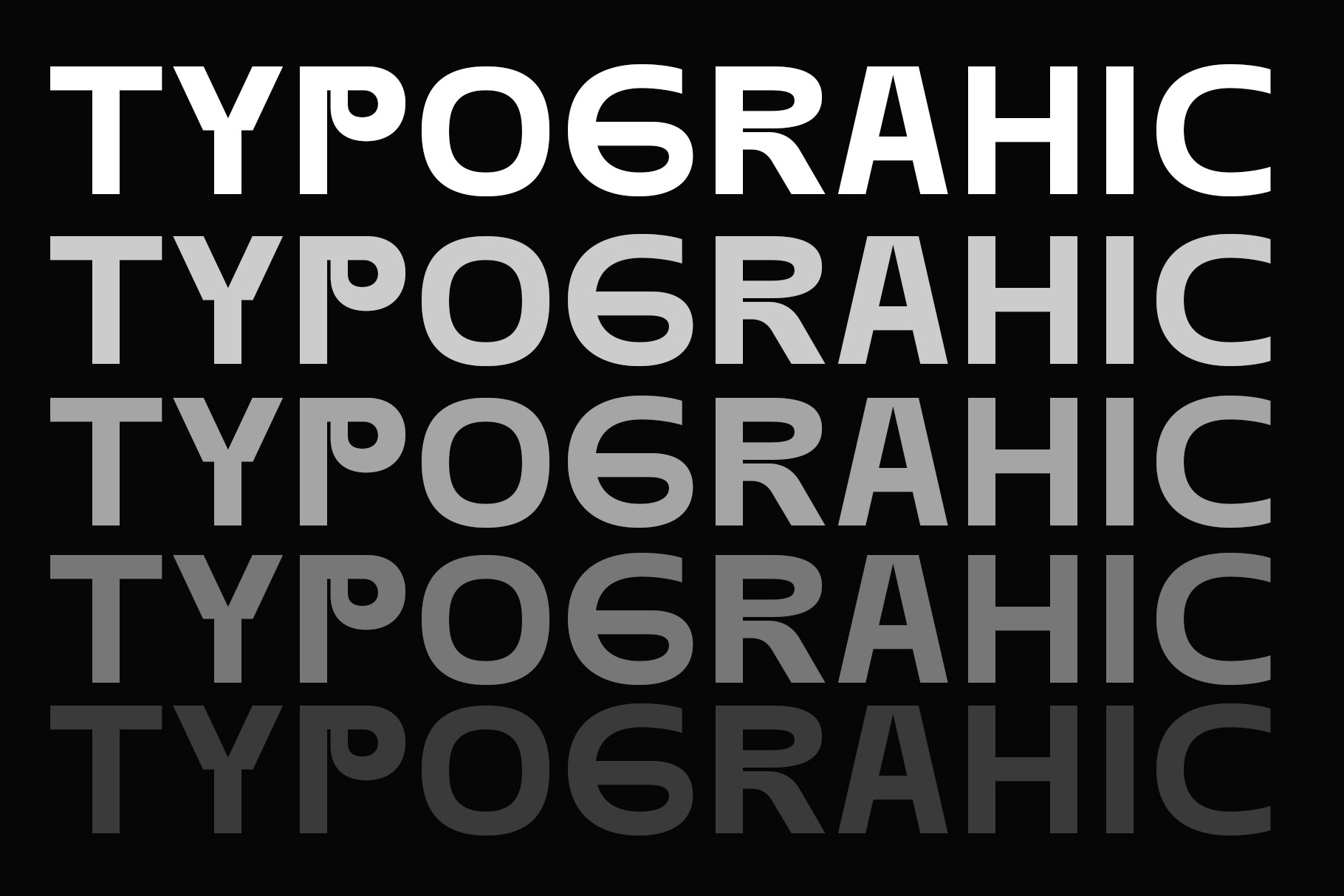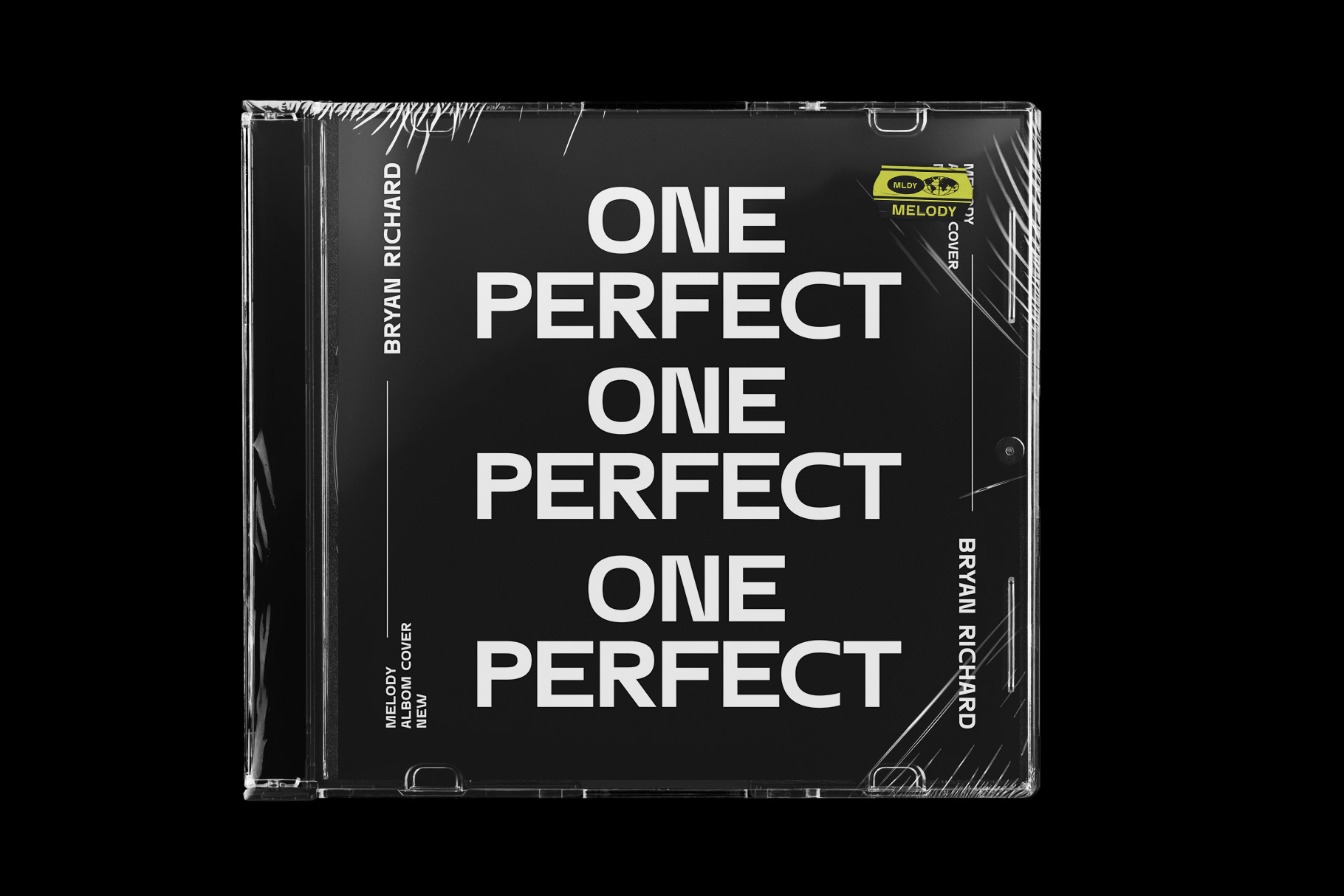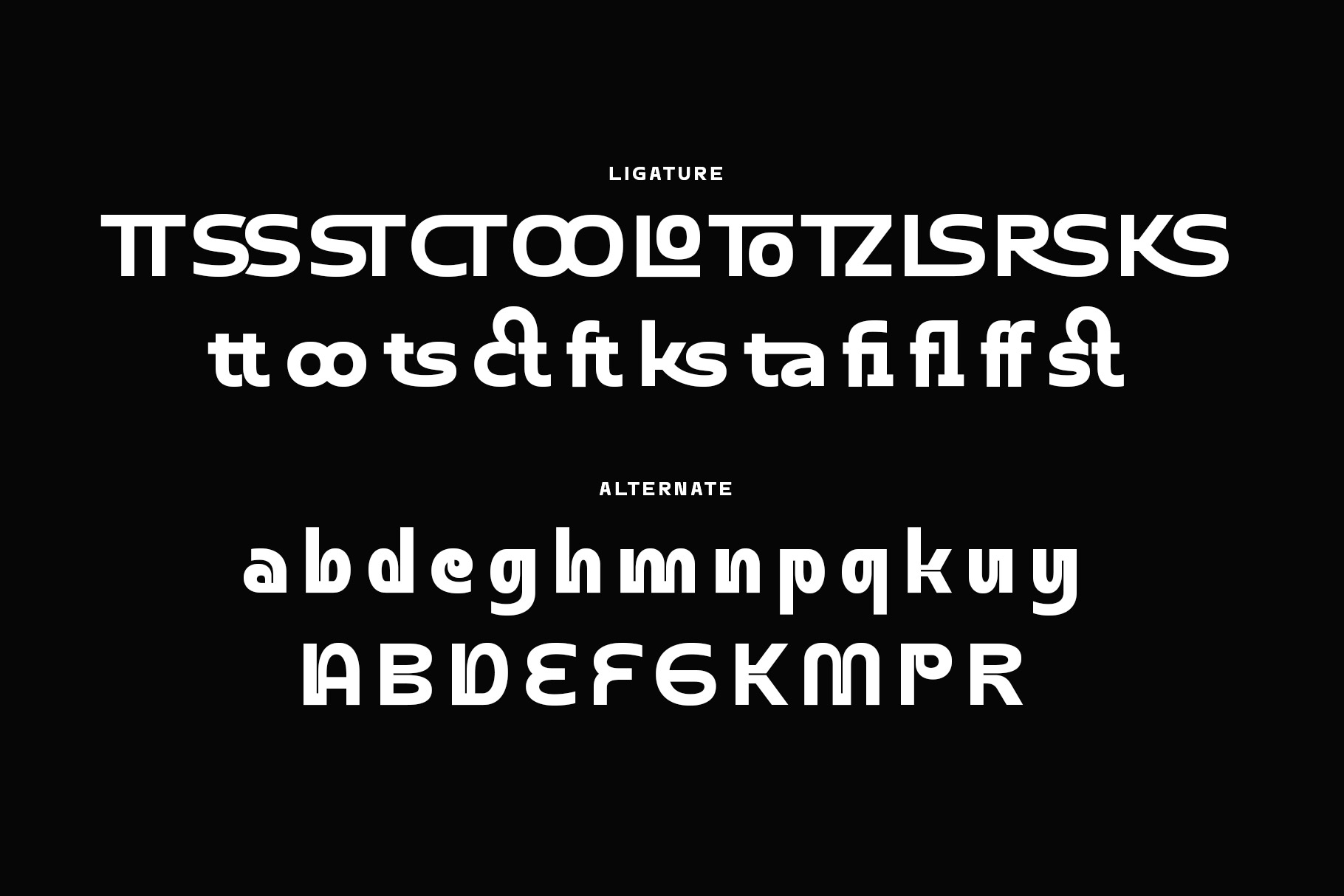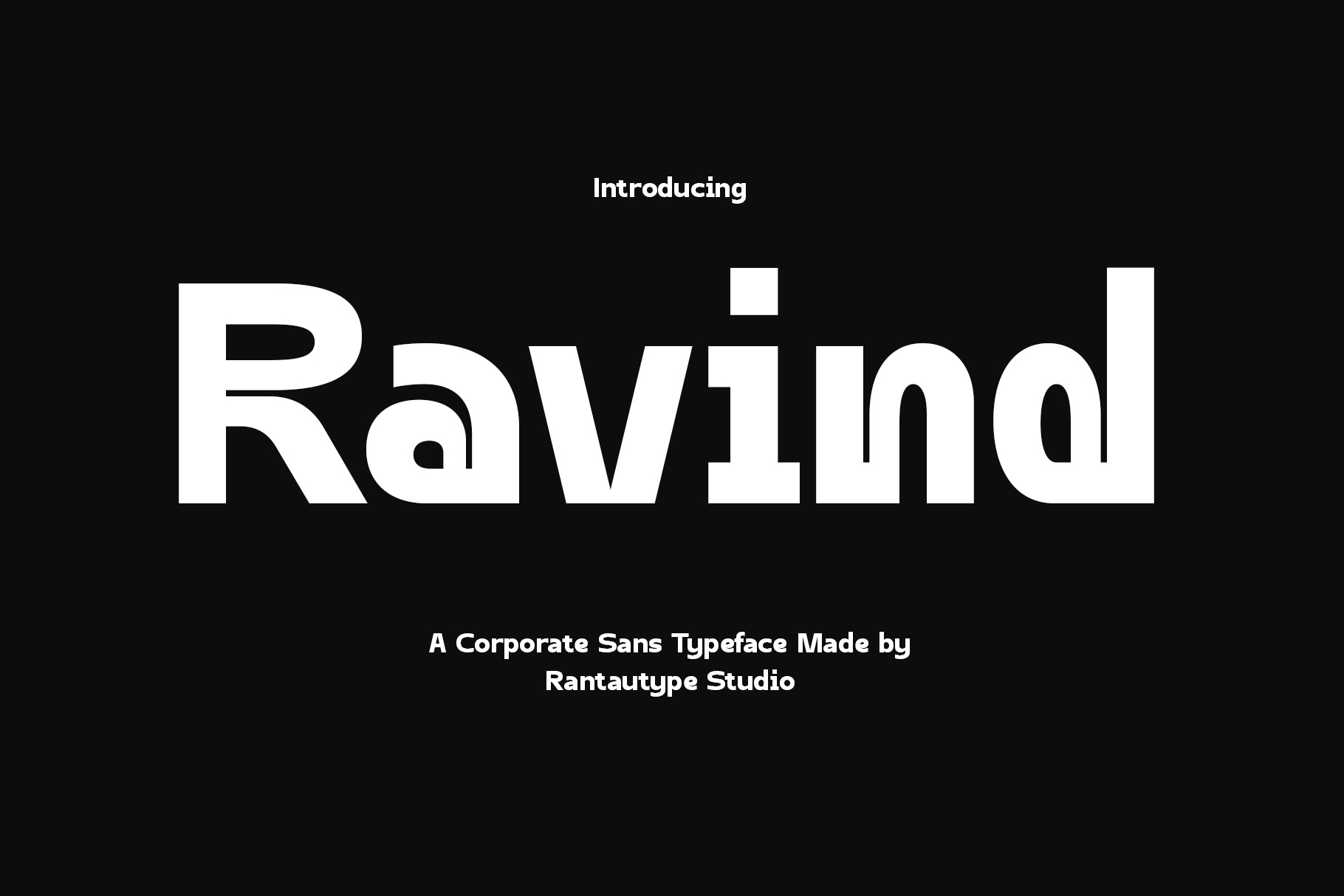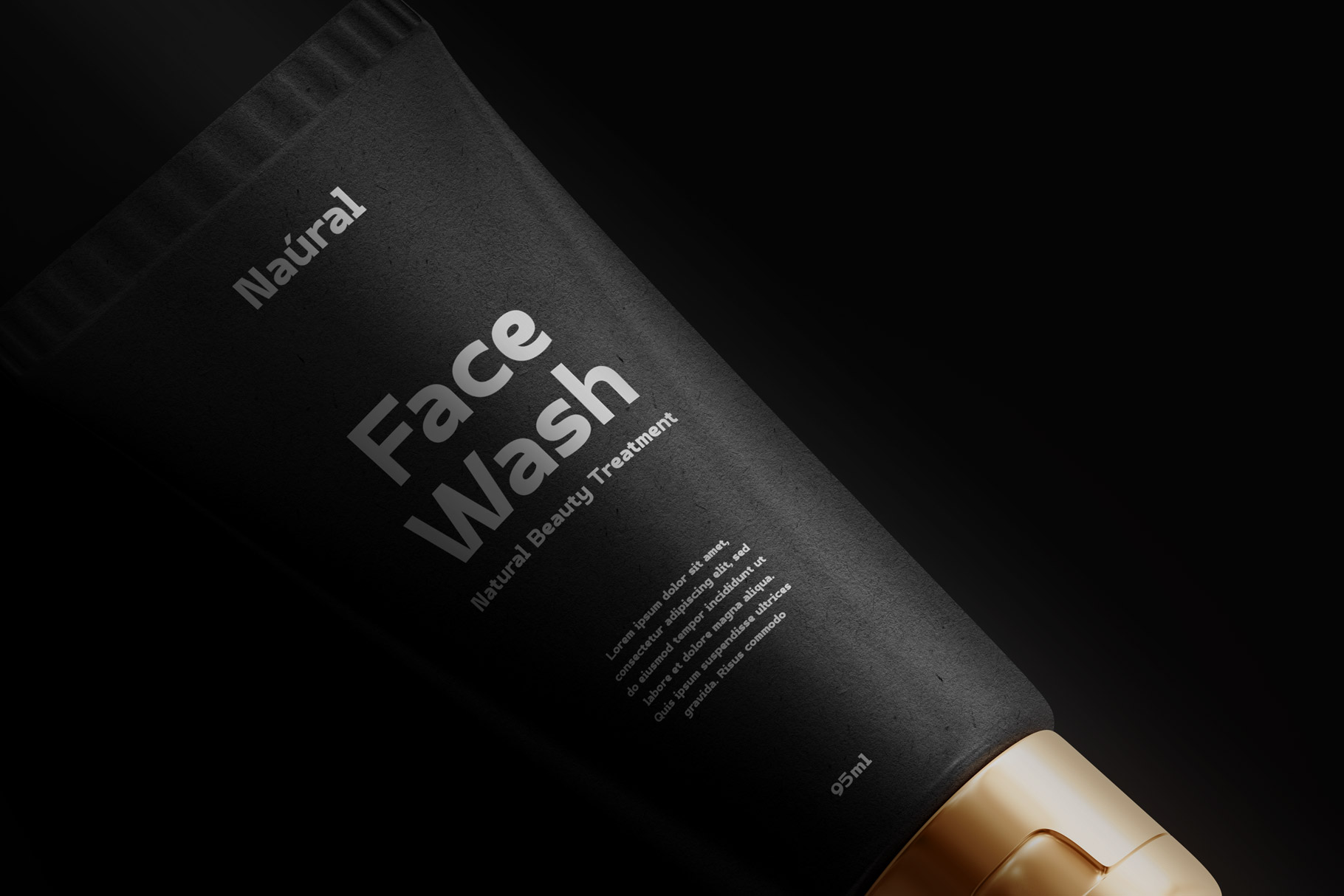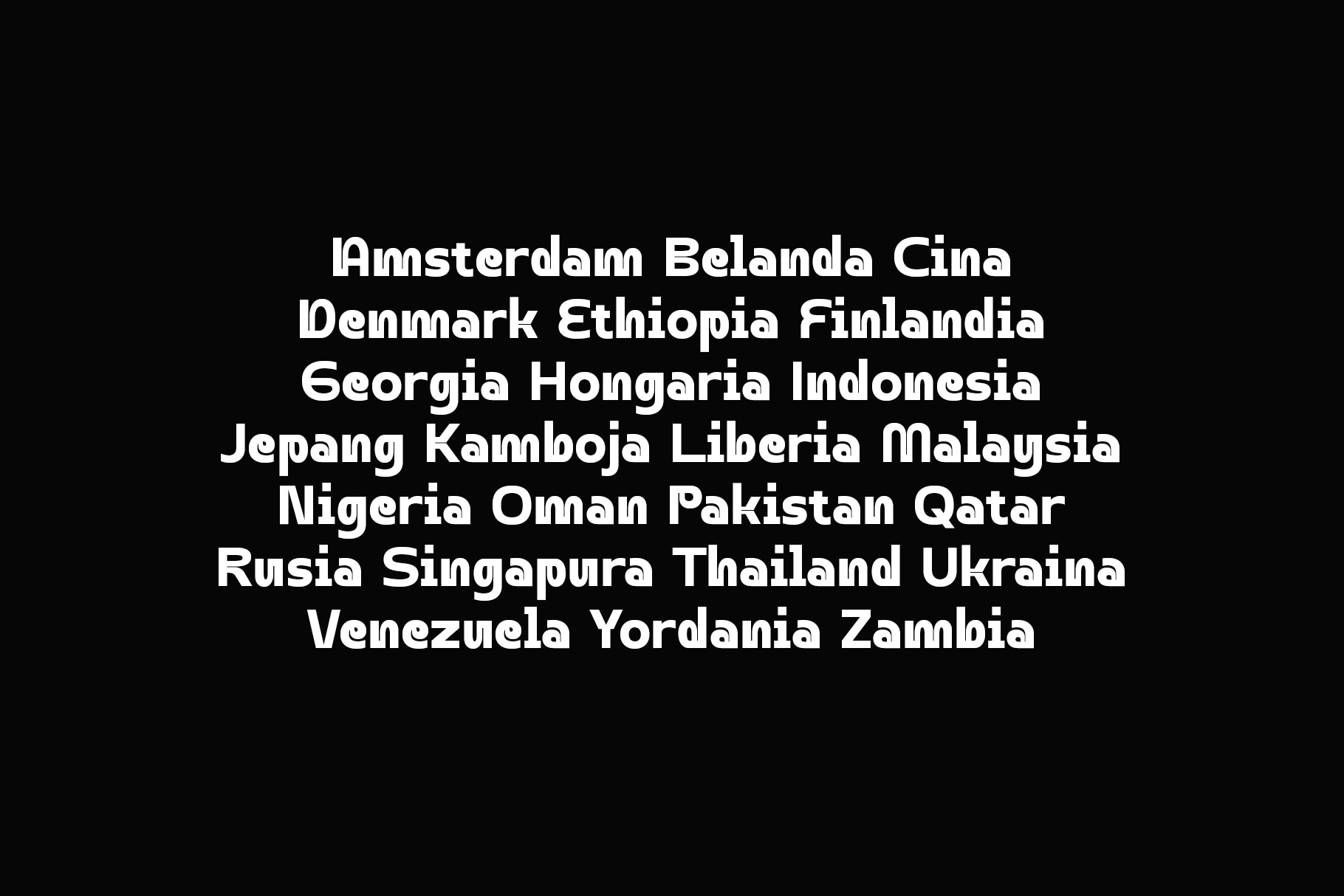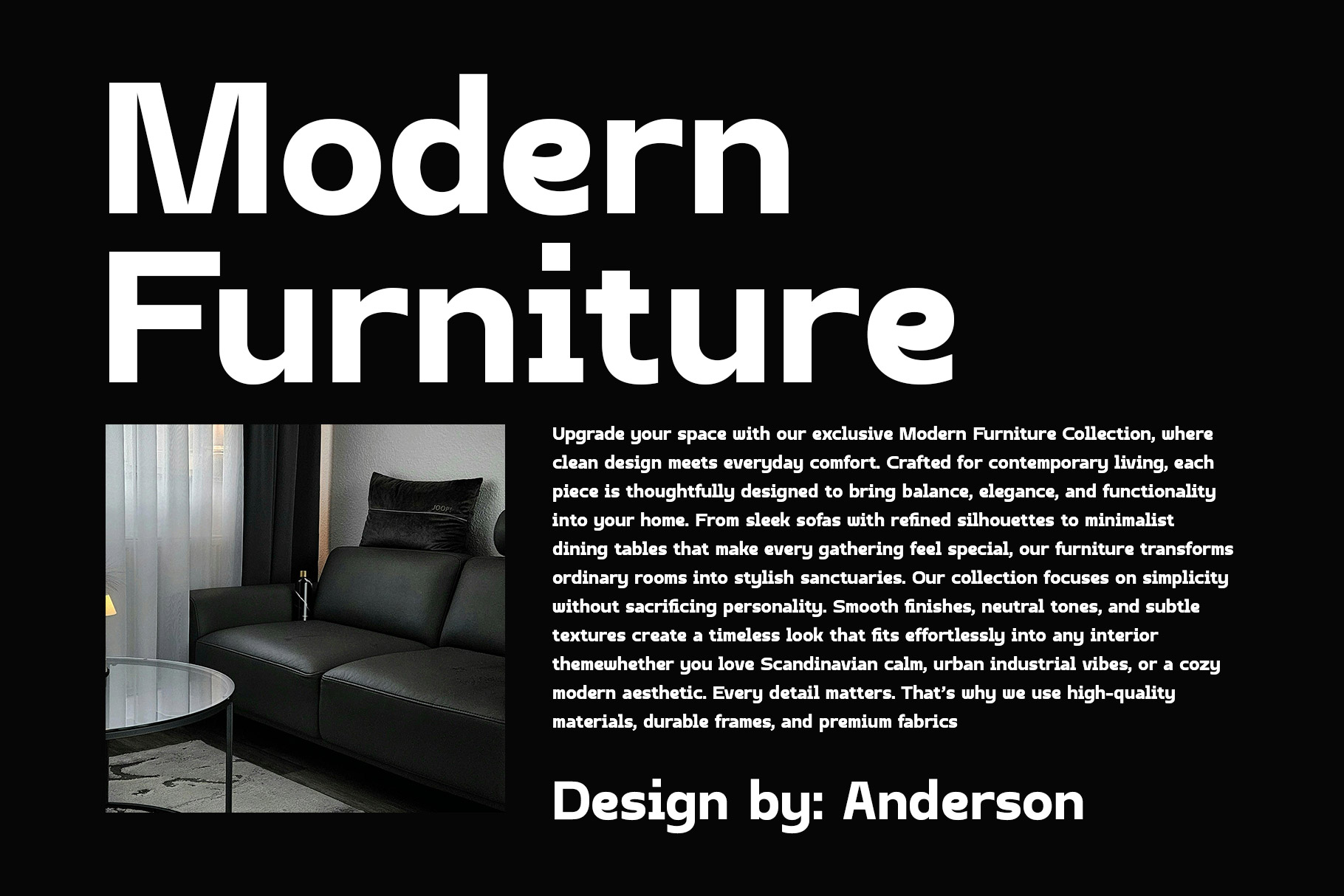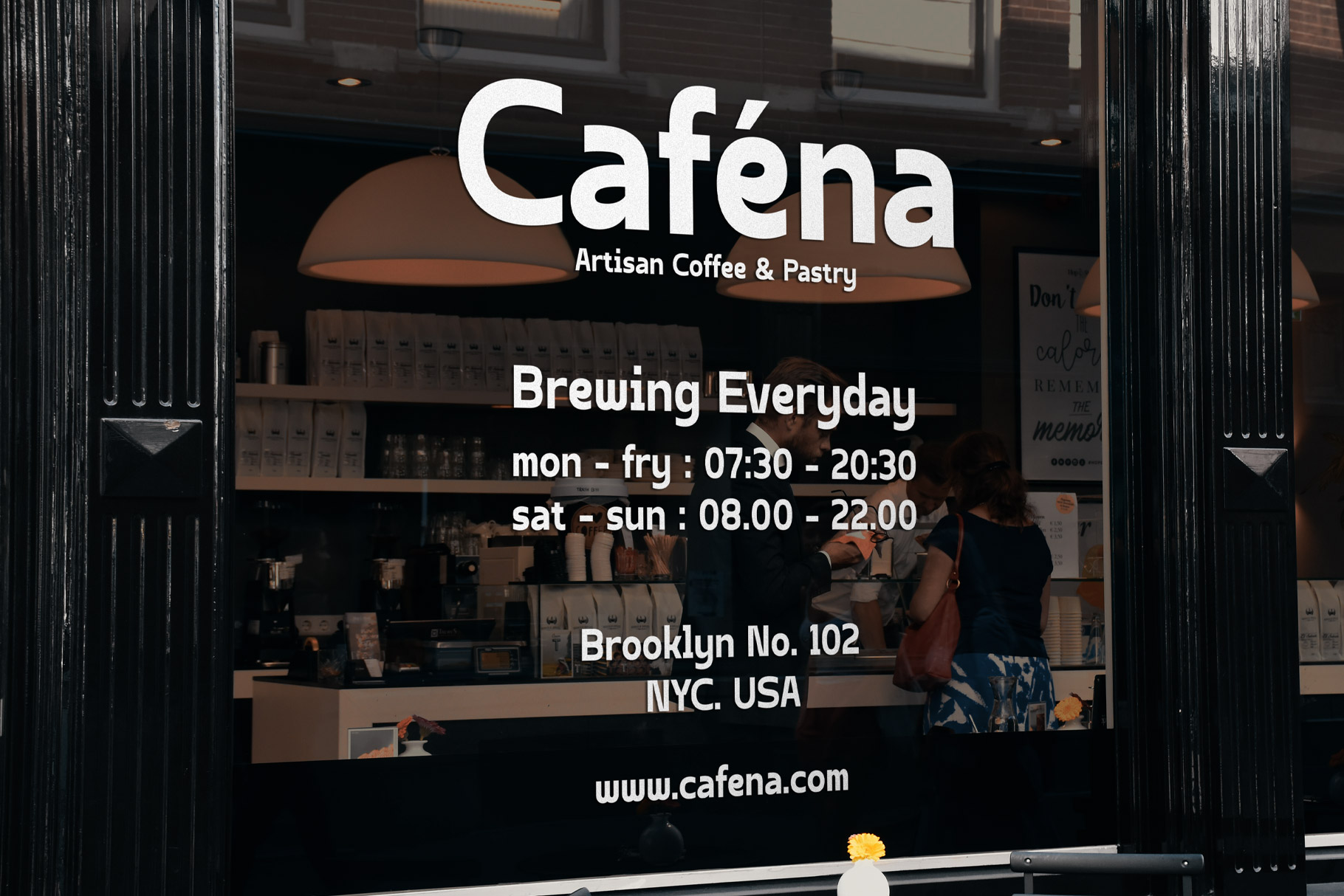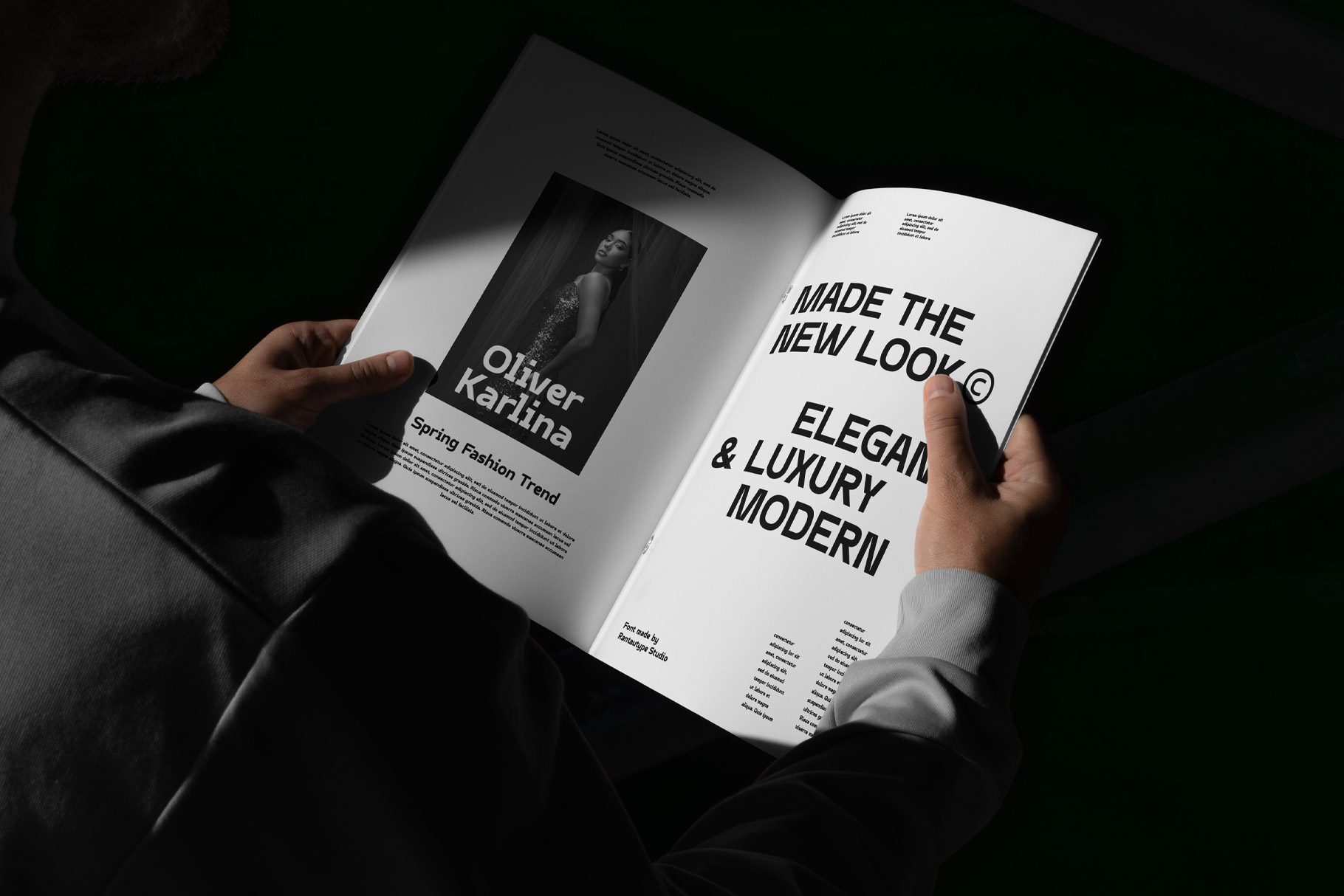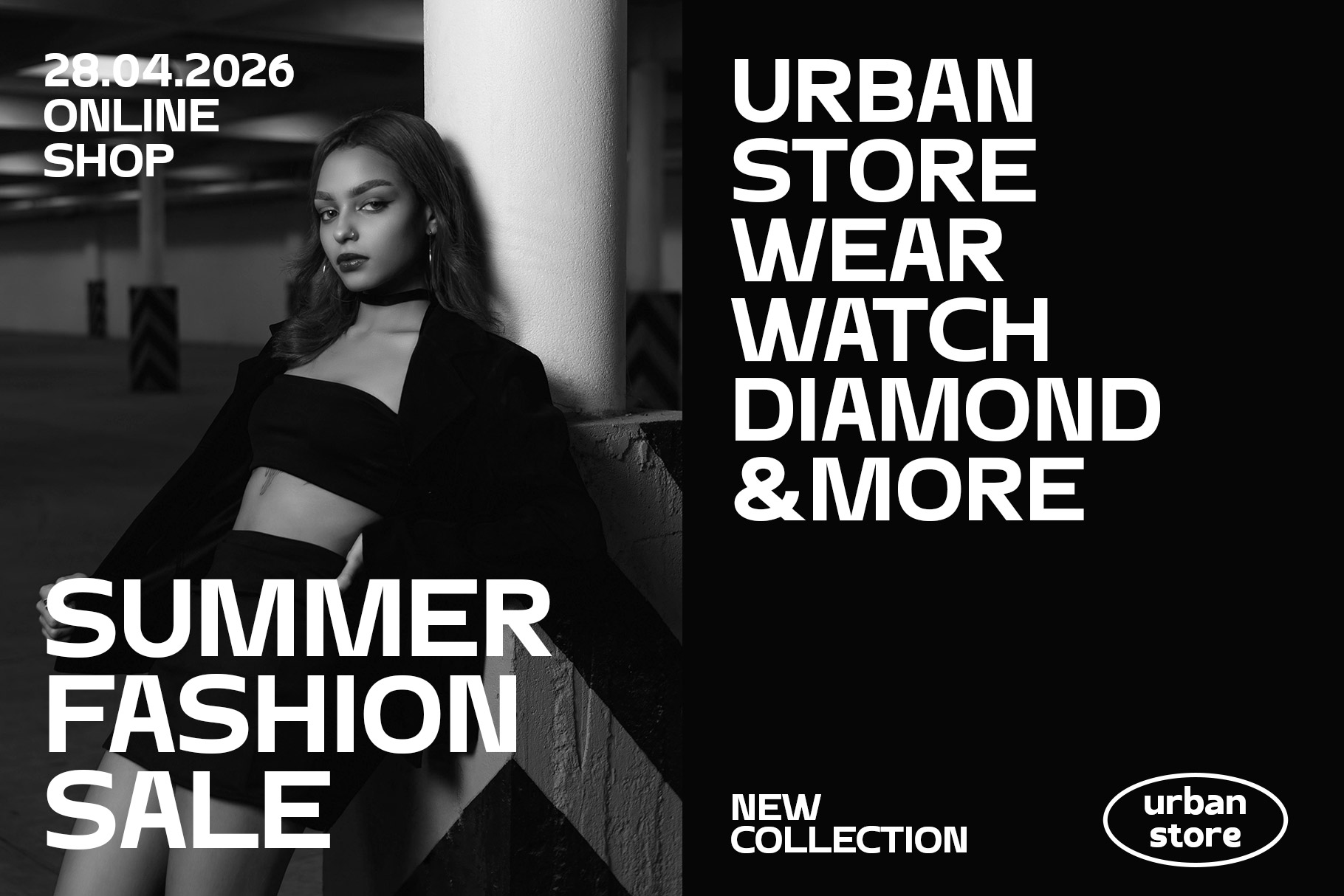
Ravind Corporate Typeface
Ravind is visual identity typeface with clear, confident and modern. Designed to communicate professionalism and trust. Ravind come with clean lines and minimal forms of a sans serif typeface make it the perfect choice for companies that want to present themselves as modern, efficient, and forward-thinking.
Ravind is a perfectly choice for any creative endeavor, creating, modern, lifestyle design such as logotype, title, cover, branding, invitations, wedding designs, display and magazine, social media posts, advertisements, printed quotes, product packaging, corporate brand, product designs, labels, photography, watermarks, special events and any other project with modern touch.